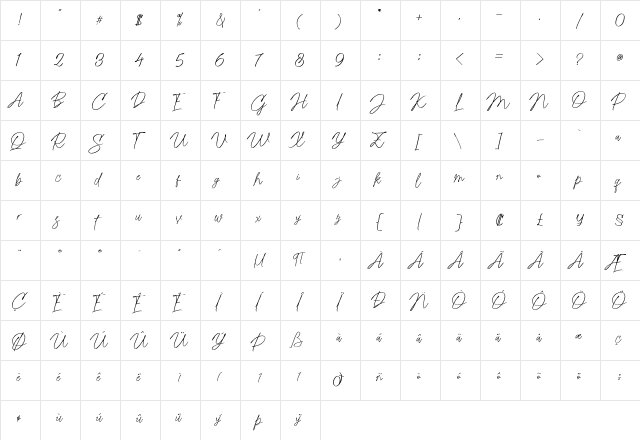
Rastell Regular
Design Context for Rastell Typeface
Rastell is a composed and adaptable typeface that performs quietly and consistently across a wide range of design contexts.